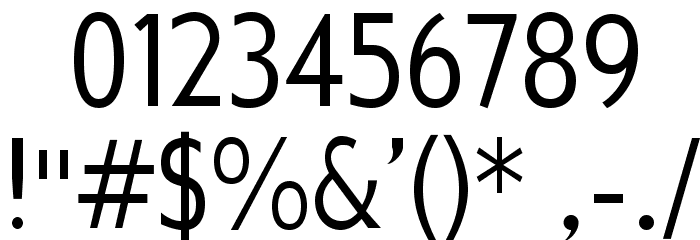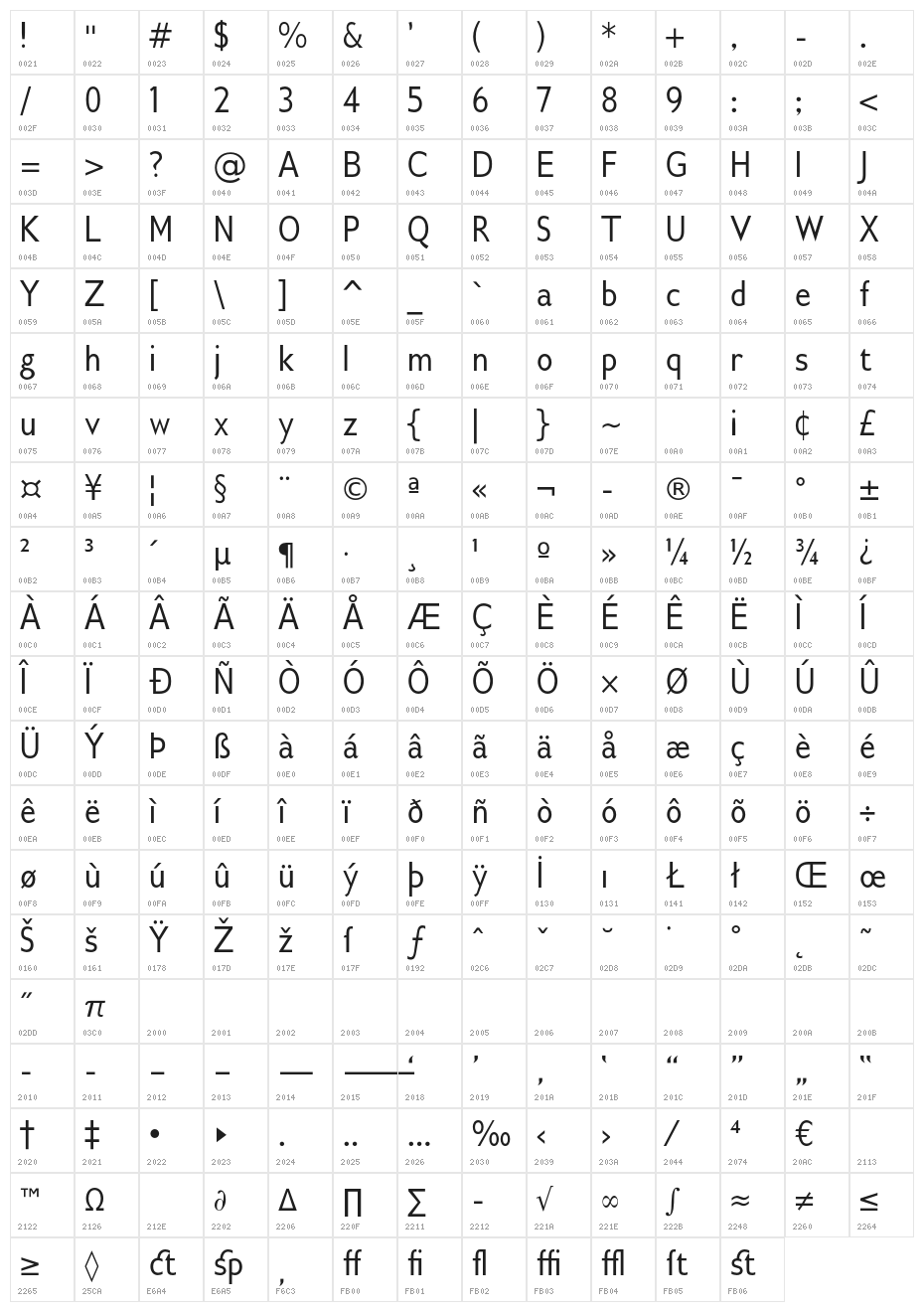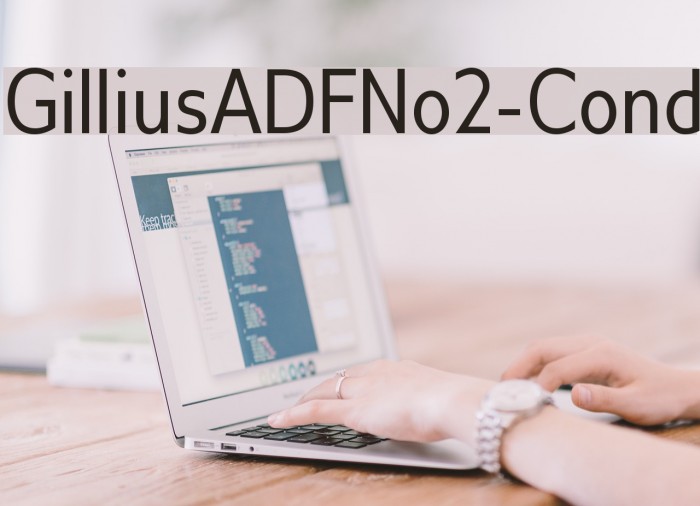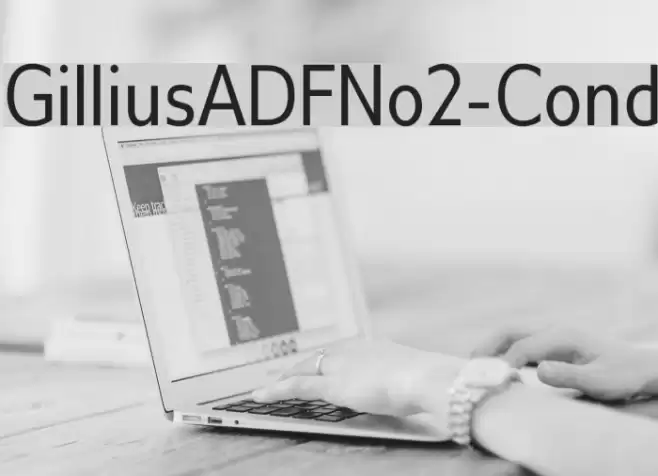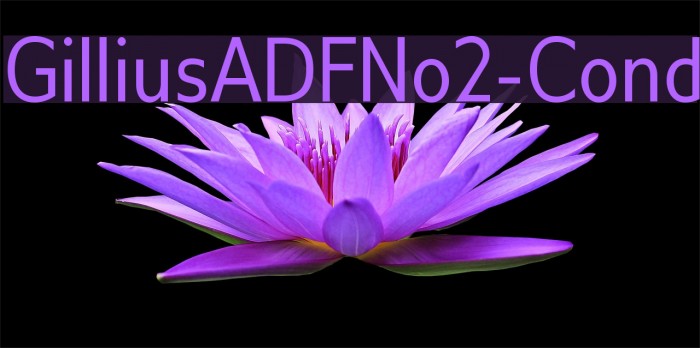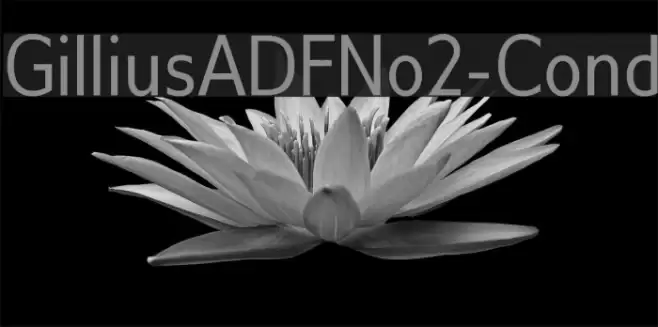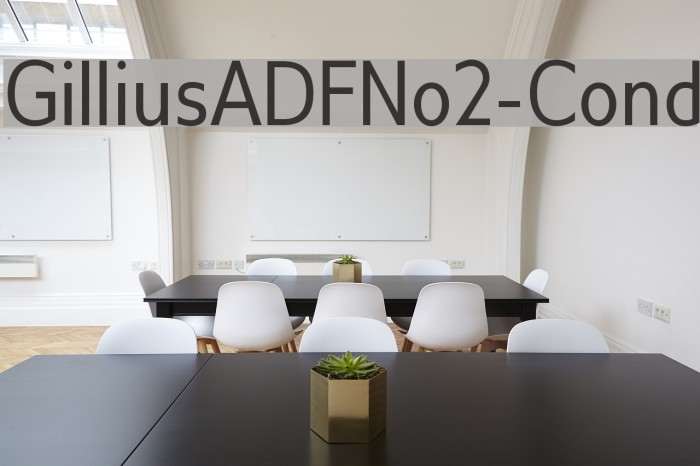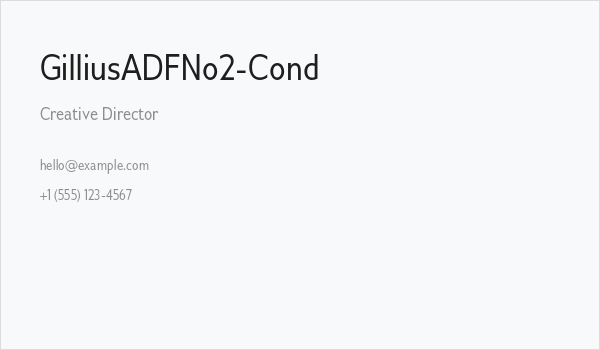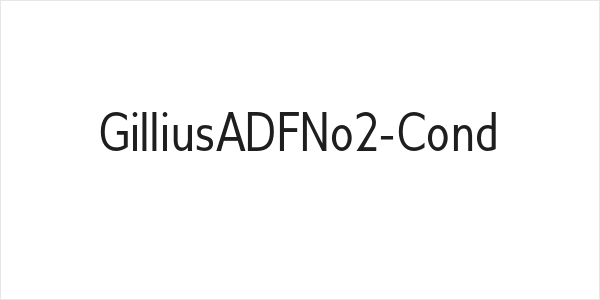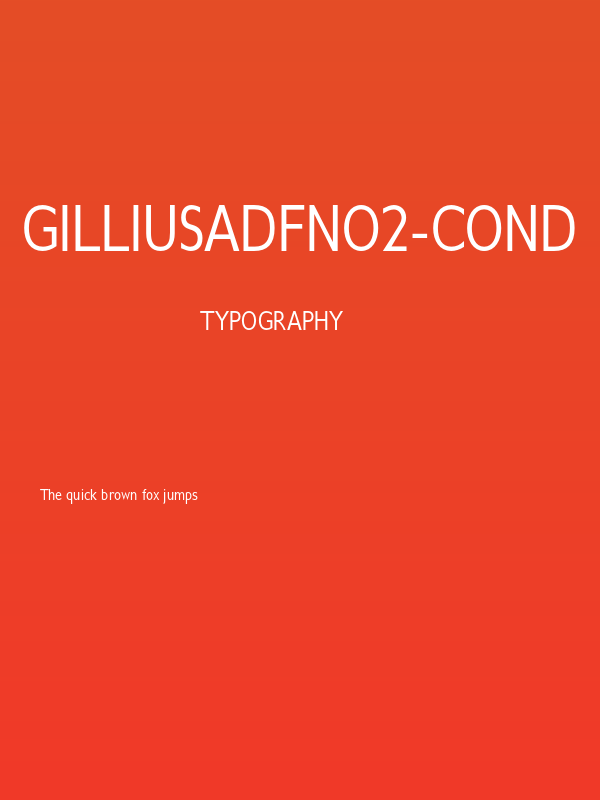
GilliusADFNo2-Cond Font
GilliusADFNo2-Cond Description
This font features a clean and modern sans-serif design with a condensed width, making it ideal for space-saving applications. The characters are well-proportioned with a uniform stroke width, contributing to its readability and versatility. The uppercase letters are bold and assertive, while the lowercase letters maintain a friendly and approachable appearance. The numerals are clear and distinct, ensuring easy legibility. Special characters are well-integrated, maintaining the overall aesthetic of the font. Its simplicity and clarity make it suitable for a wide range of design projects.
| Proposed Projects | Ideal for branding, advertising, web design, and editorial layouts where space is limited. |